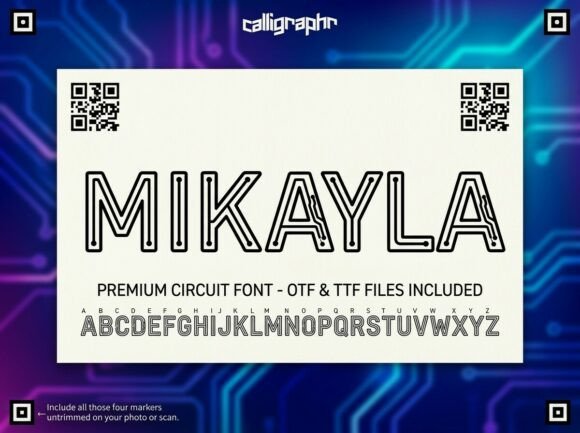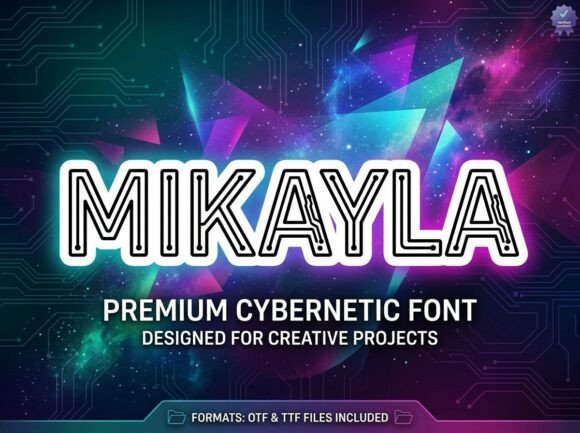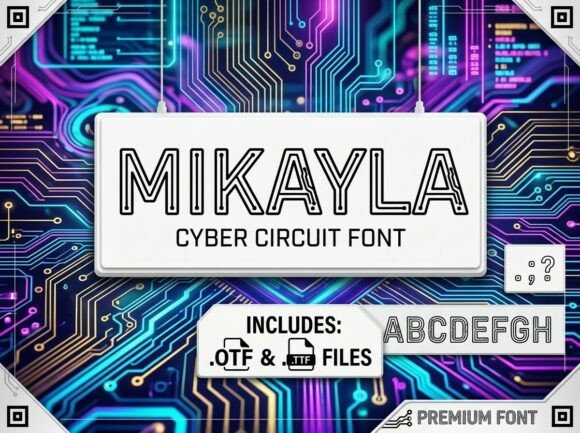
Introduction to Mikayla Font
Plug into the future of typography with Mikayla, a high-tech display font that captures a “cybernetic-and-systematic” soul.
This typeface features bold, outlined sans-serif letterforms uniquely engineered with integrated circuit board pathways, complete with conductive traces and circular node terminals With its clean technical lines and rhythmic digital aesthetic, Mikayla is the premier choice for independent hardware tech branding, cybersecurity firm identities, futuristic gaming interfaces, and high-impact “silicon-valley” social media headers.
Key Features of Mikayla Font
Why Choose Mikayla Font?
Mikayla Font offers exceptional quality and versatility, making it a valuable addition to your design toolkit. Whether you’re creating for personal projects or commercial use, Mikayla Font delivers professional results.